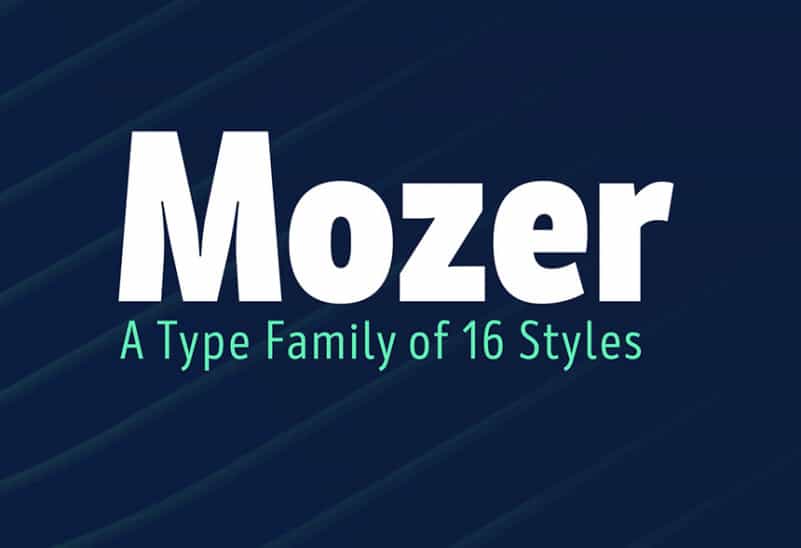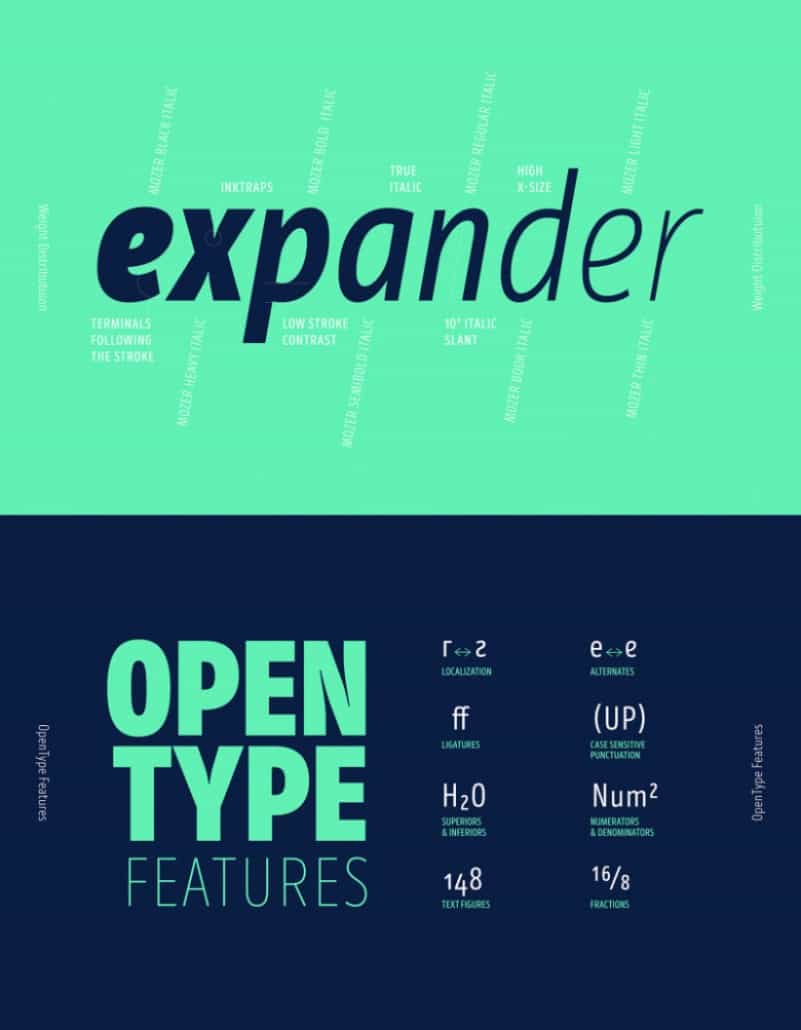
Presenting the Mozer Sans Serif Family! The font family called Mozer Font is a semi-condensed neo-grotesque refined and has 16 styles – Thin, Light, Regular, Normal, Medium, Demi, Bold, Black and their italics. By having a relatively large x-height, a rather slender body, moderate contrast between the thick and thin parts of the strokes and a general rather serious look, this typeface is well suited for use in headlines.